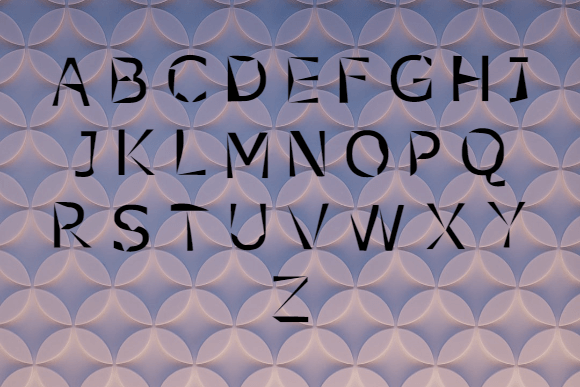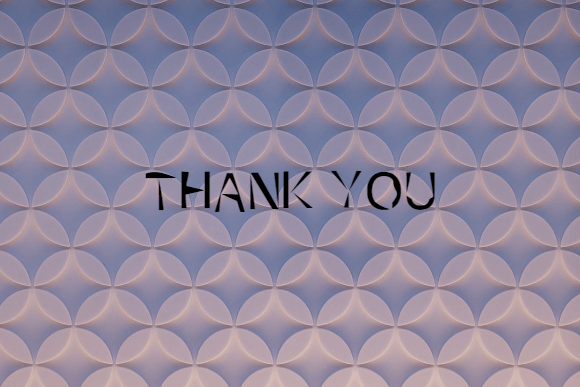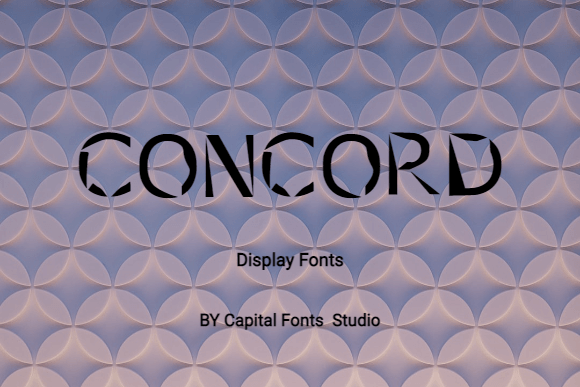
Introducing Concord Font: Elevate Your Designs with a Bold and Versatile Typeface
In the world of design, typography plays a crucial role in conveying messages, expressing creativity, and capturing the essence of a brand. When it comes to selecting the perfect font for your project, the options can be overwhelming. However, if you’re looking for a bold, easy-to-read, and versatile font that can elevate your designs, look no further than Concord Font. In this article, we’ll explore the features, benefits, and uses of Concord Font, and why it’s an incredible asset to your font library.
What is Concord Font?
Concord Font is a stunning, bold typeface designed to make a statement. Its clean lines, precise curves, and exceptional legibility make it perfect for a wide range of applications, from branding and packaging to advertising and digital media. Whether you’re working on a logo, brochure, or website, Concord Font is sure to impress.
Key Features of Concord Font
- Bold and Easy-to-Read: Concord Font is designed to grab attention and convey confidence. Its bold strokes and clear letterforms ensure that your message is communicated effectively, even at smaller font sizes.
- Versatile: Concord Font is an incredibly versatile typeface that can be used across various industries and applications. From modern and sleek to classic and elegant, Concord Font adapts effortlessly to any design style.
- Exceptional Legibility: The font’s carefully crafted letterforms and spacing ensure that your text is easy to read, even in dense blocks of content.
- Unique and Creative: Concord Font’s distinctive character set and stylish aesthetic make it perfect for designers looking to add a touch of personality to their work.
Benefits of Using Concord Font
So, why should you choose Concord Font for your next project? Here are just a few benefits of incorporating this incredible font into your design workflow:
- Elevate Your Designs: Concord Font has the power to transform your designs from ordinary to extraordinary. Its bold and confident appearance ensures that your work stands out from the crowd.
- Save Time: With Concord Font, you can create stunning designs quickly and efficiently. Its ease of use and versatility mean you can experiment with different styles and applications without having to switch fonts.
- Enhance Brand Identity: Concord Font can help you establish a strong brand identity that resonates with your target audience. Its unique and memorable appearance ensures that your brand stays top of mind.
Uses of Concord Font
Concord Font is an incredibly versatile typeface that can be used across a wide range of applications, including:
- Branding: Use Concord Font to create bold and memorable logos, business cards, and letterheads.
- Packaging: Elevate your product packaging with Concord Font’s stylish and confident appearance.
- Advertising: Make a statement with Concord Font in your print and digital ads.
- Digital Media: Use Concord Font to create engaging and interactive digital content, such as website headers, social media graphics, and email newsletters.
In conclusion, Concord Font is an exceptional addition to any designer’s font library. Its bold, easy-to-read, and versatile nature makes it perfect for a wide range of applications. Whether you’re working on a branding project, packaging design, or digital media, Concord Font is sure to elevate your designs and help you achieve your creative goals. So why wait? Download Concord Font today and experience the power of exceptional typography.